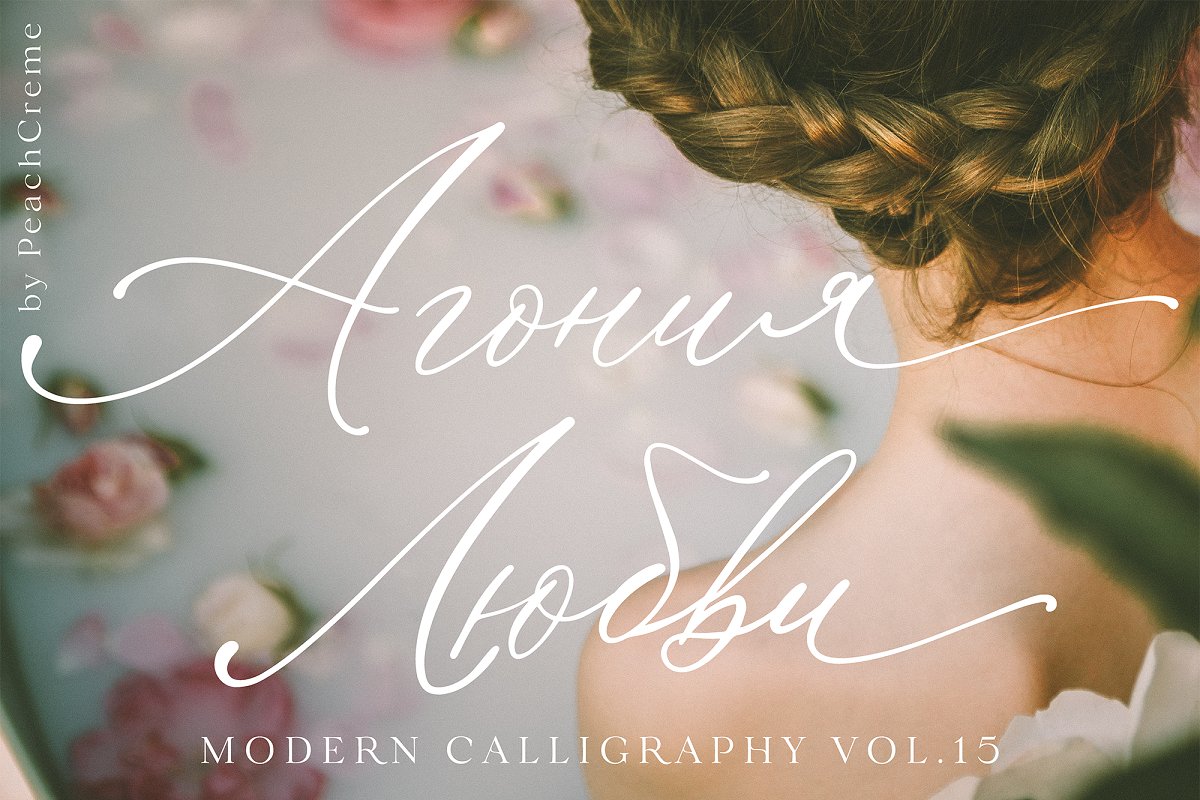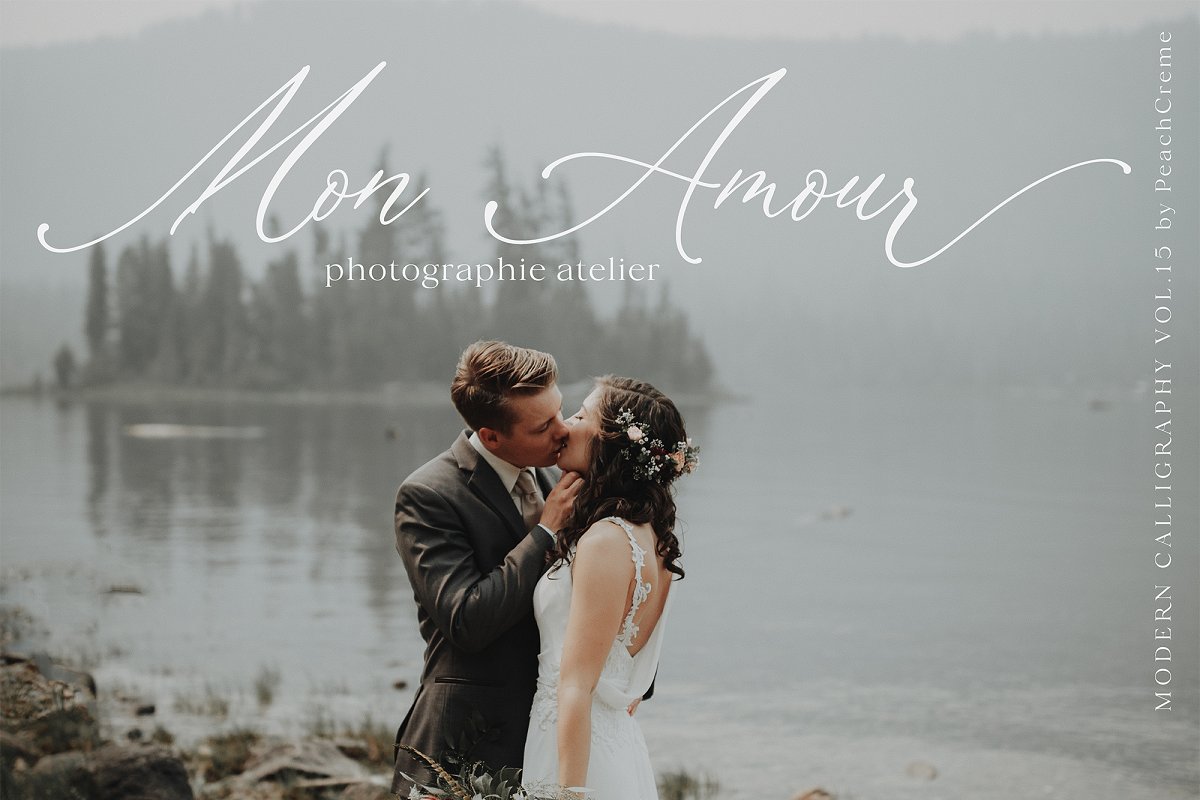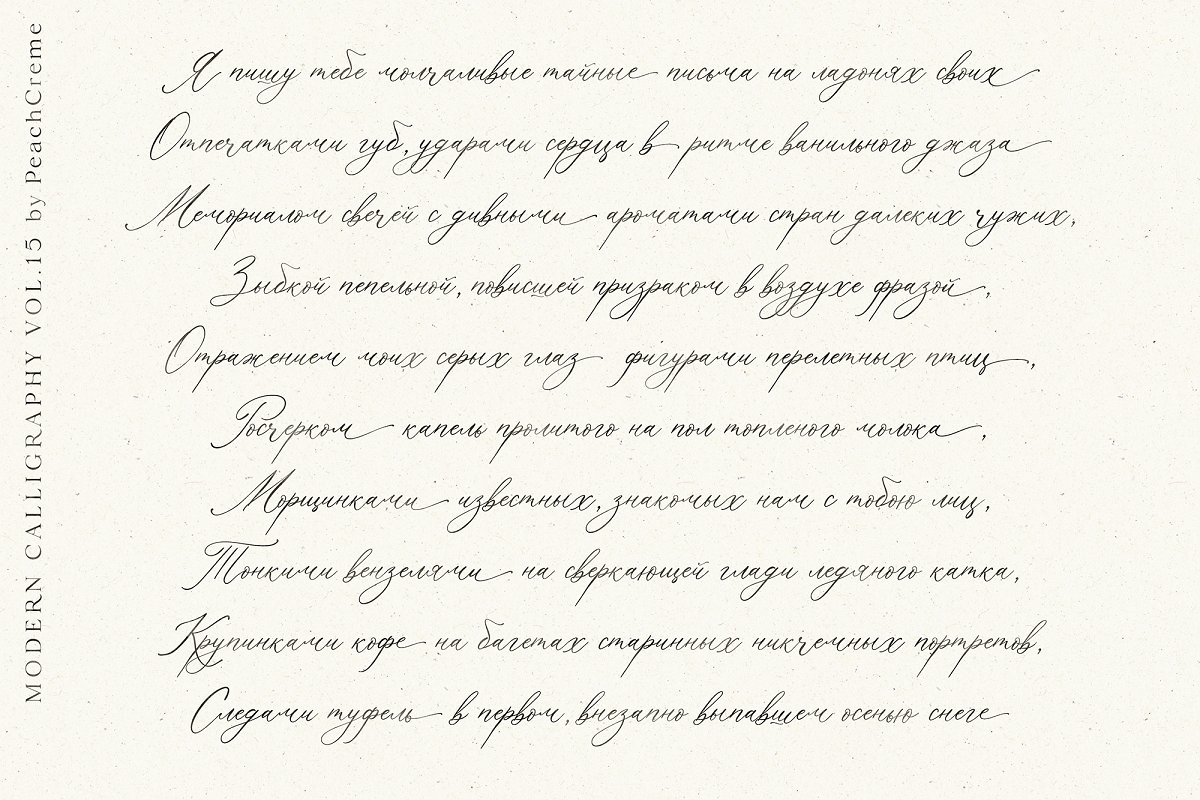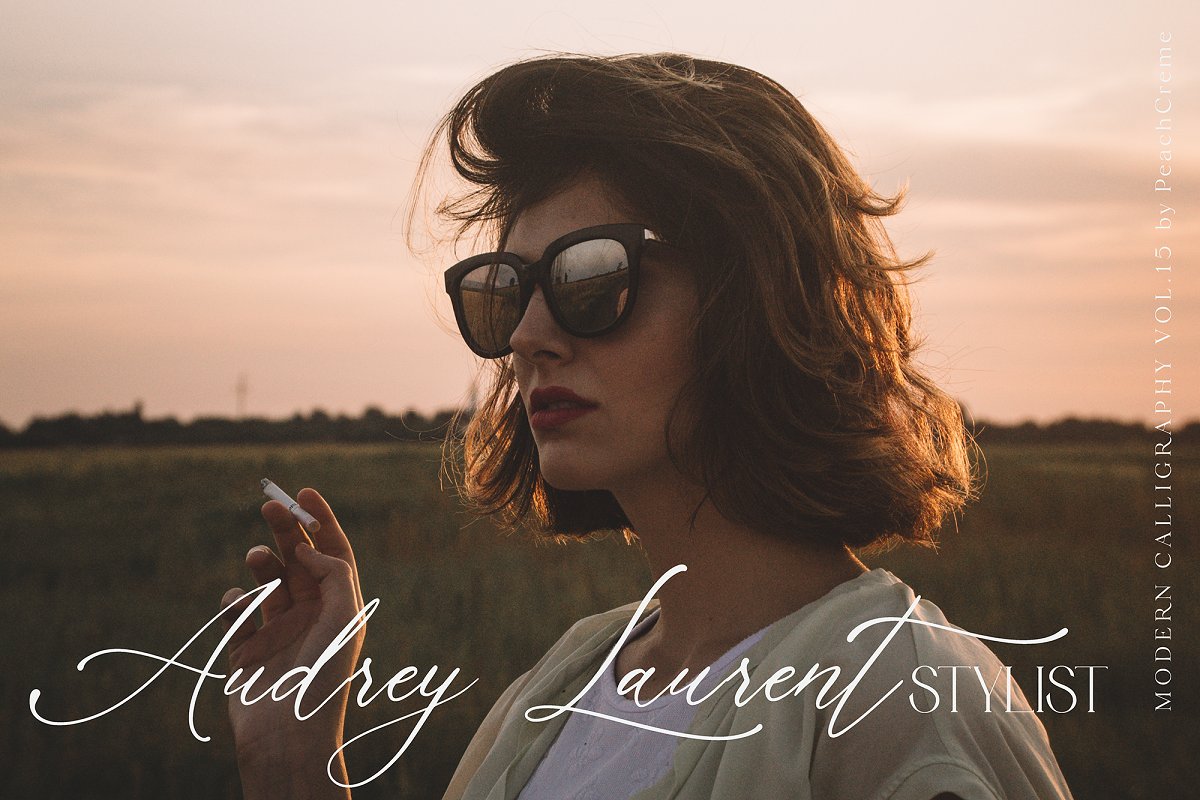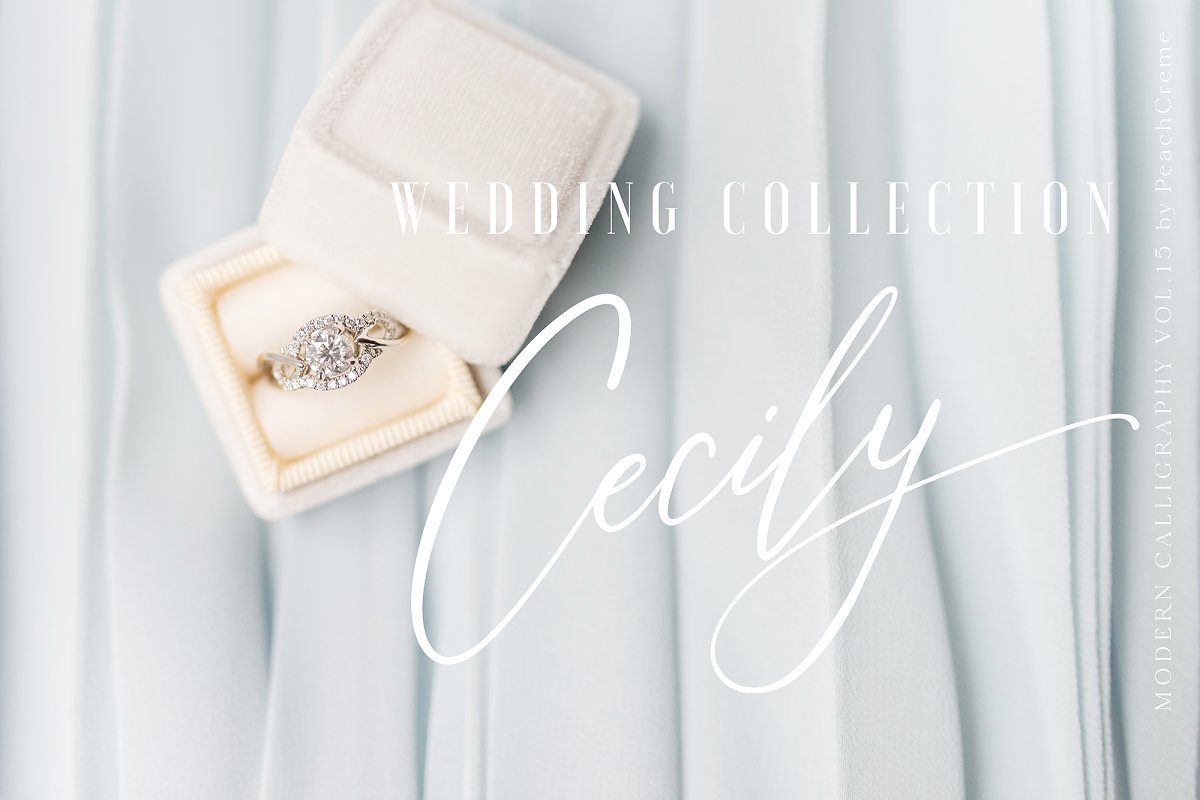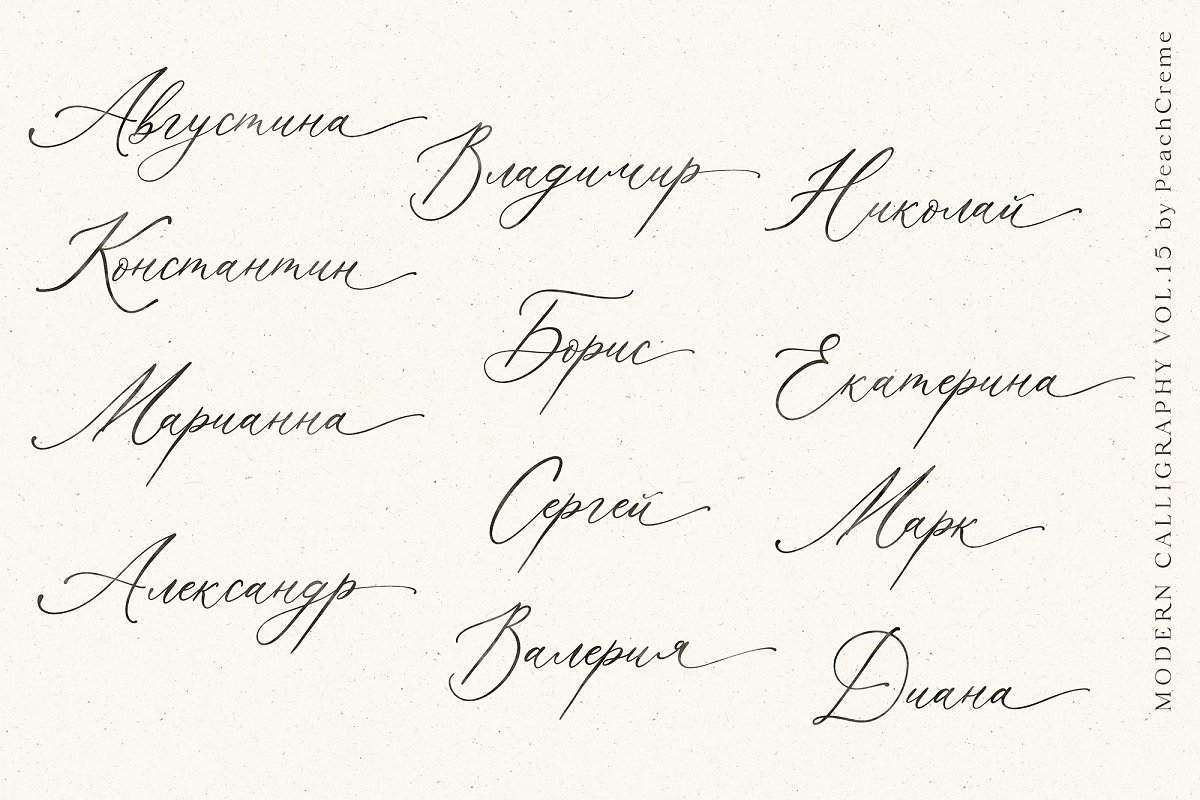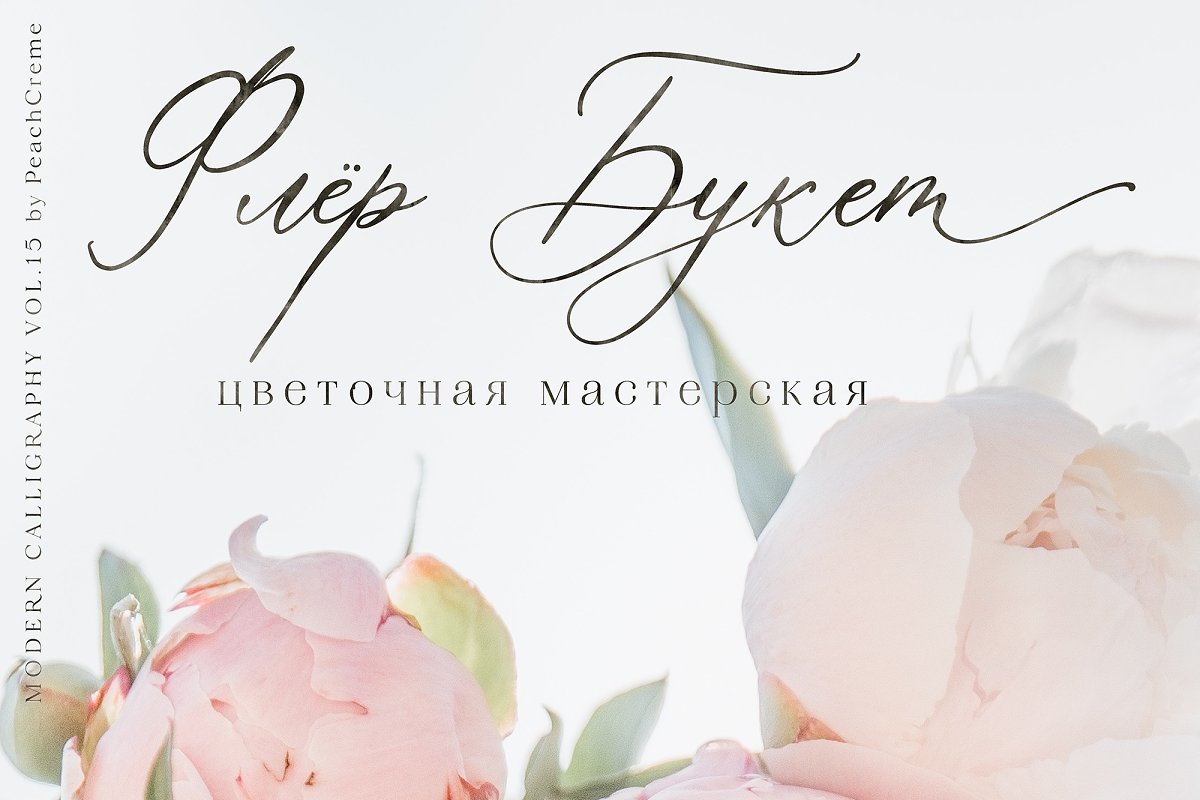
About the Agonia Lyubvi Modern Calligraphy Font
MODERN CALLIGRAPHY VOL, 15Agonia Lyubvi is a crème de la crème cyrillic modern calligraphy font , It is perfect for branding, wedding invites and cards, Agonia Lyubvi includes full set of lovely uppercase and lowercase Cyrillic and English letters, multilingual symbols, numerals, punctuation and ligatures, Also it includes ending lowercase swashes